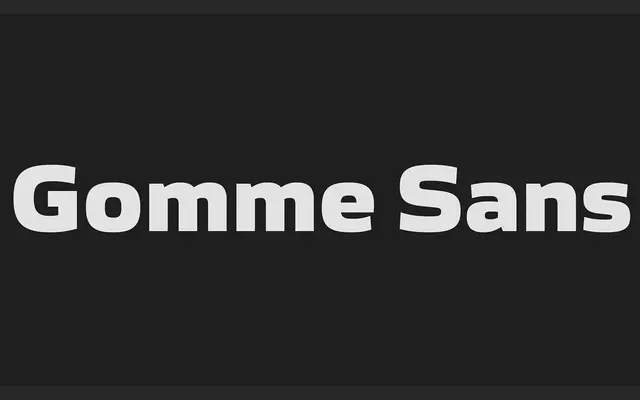
Gomme Sans
Dharma Type · Ryoichi Tsunekawa
Gomme Sans specimen from Dharma Type
A wide, squarish sans-serif in six weights with matching italics, designed by Ryoichi Tsunekawa for both text and display settings.
Squarish letterforms and a large x-height give Gomme Sans a sturdy, commanding presence at display sizes while retaining legibility in smaller text on screen. The family runs from ExtraLight to ExtraBold, each with a matching italic, covering a broad tonal range for editorial and brand work. OpenType features include proportional figures, fractions, superior and inferior figures, and case-sensitive forms, with coverage across Western, Central and South Eastern European languages as well as Afrikaans.
Described as a wide, squarish sans with bold letterforms and strong visual impact, placing it in the grotesque tradition with a geometric influence suited to both text and display work.